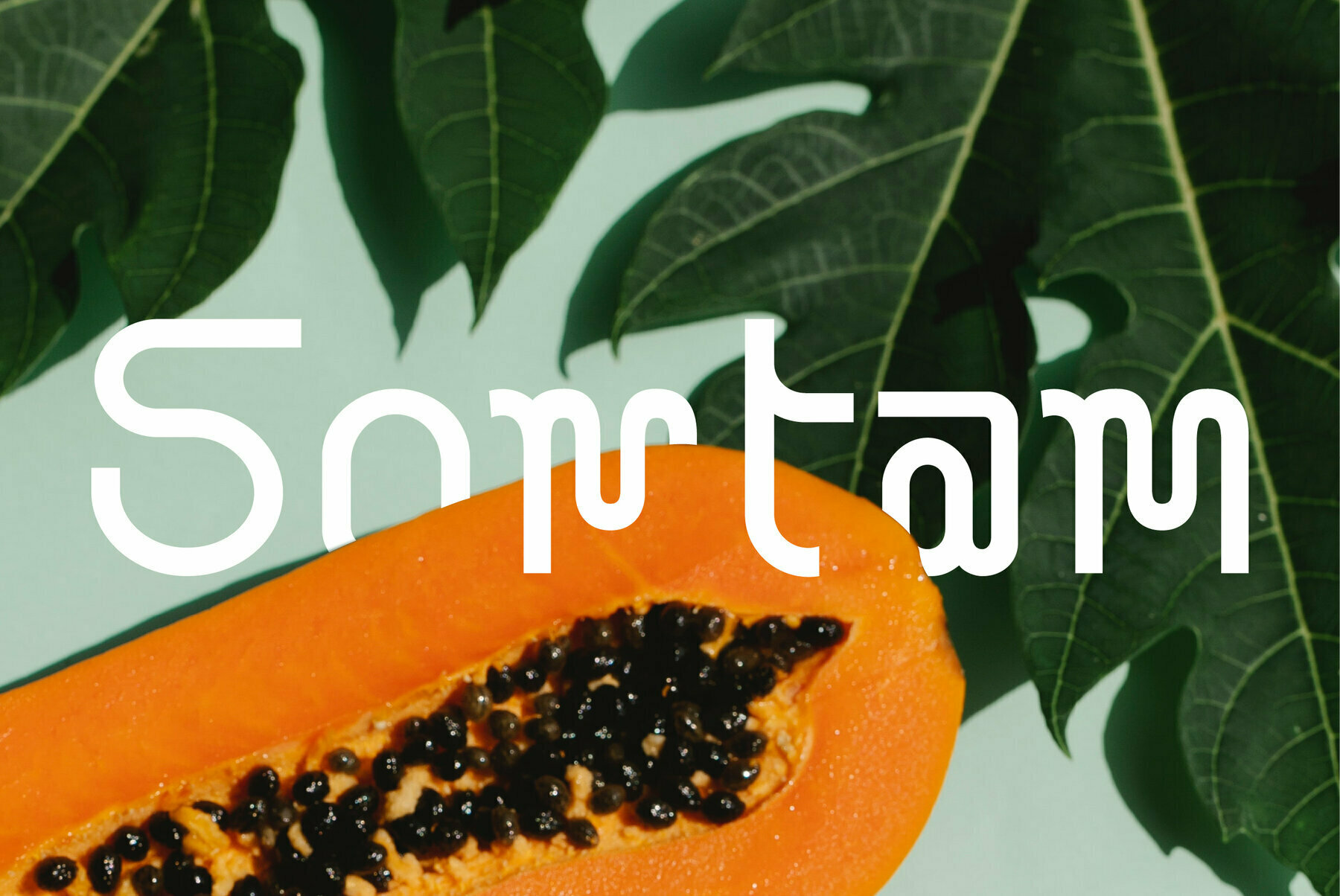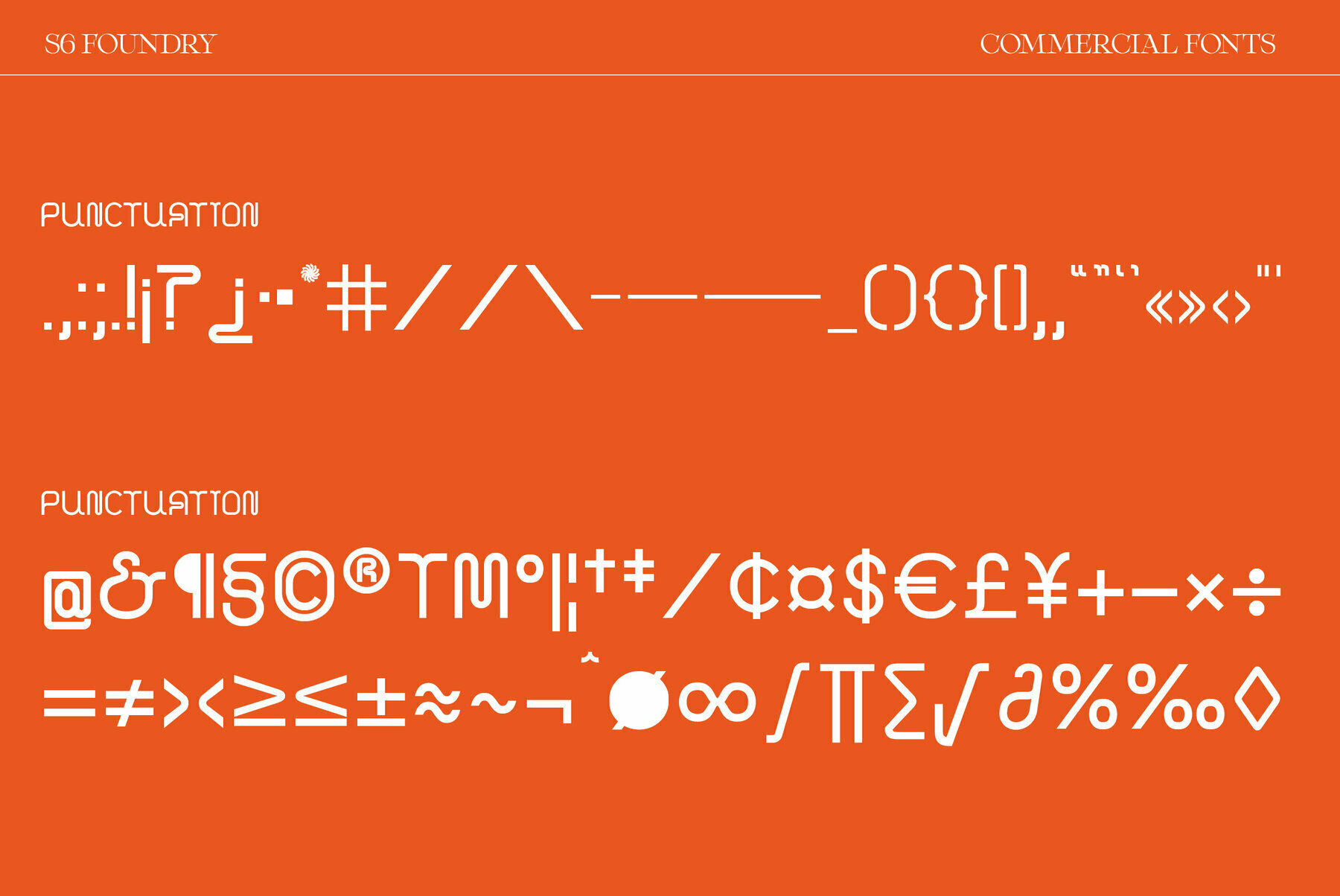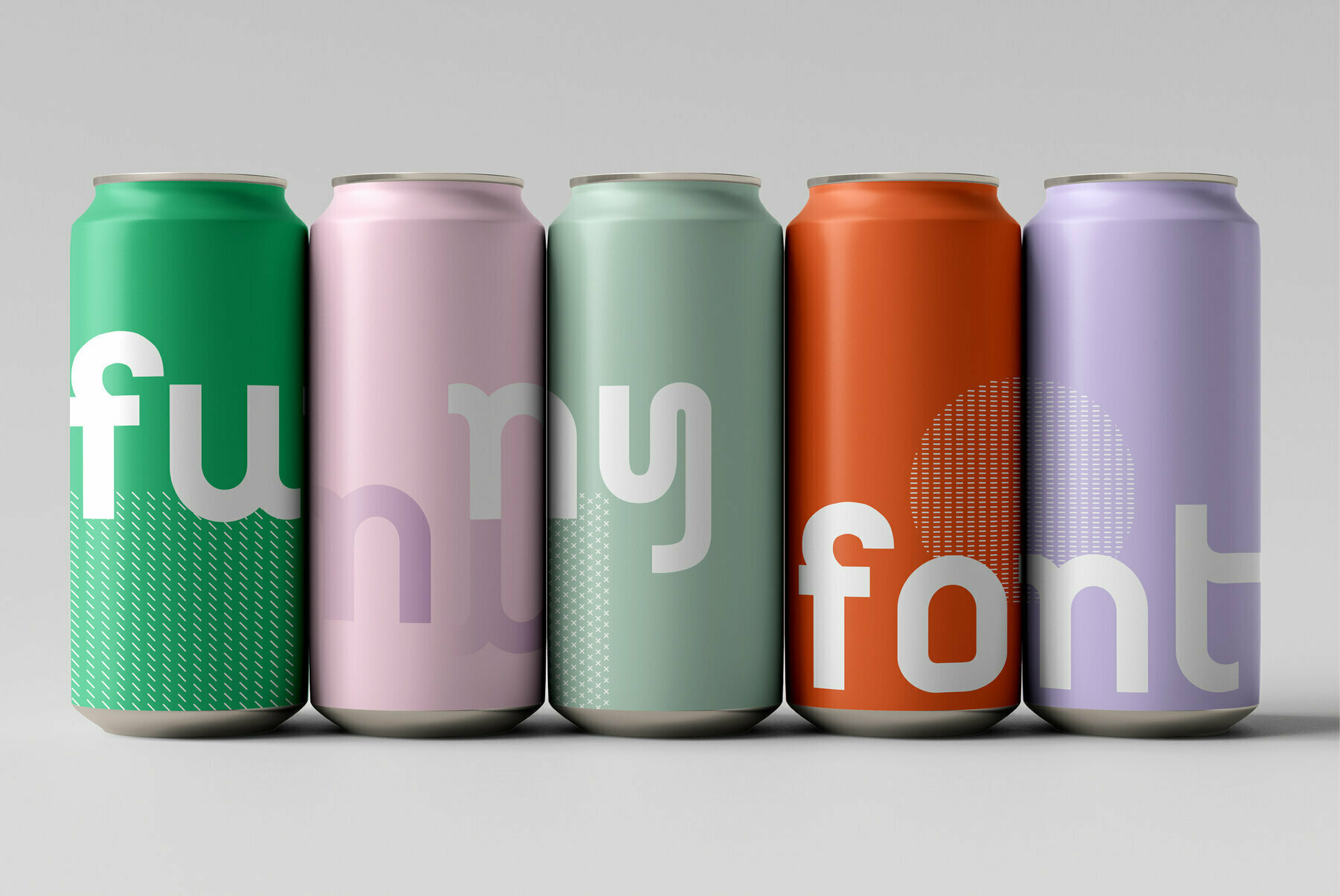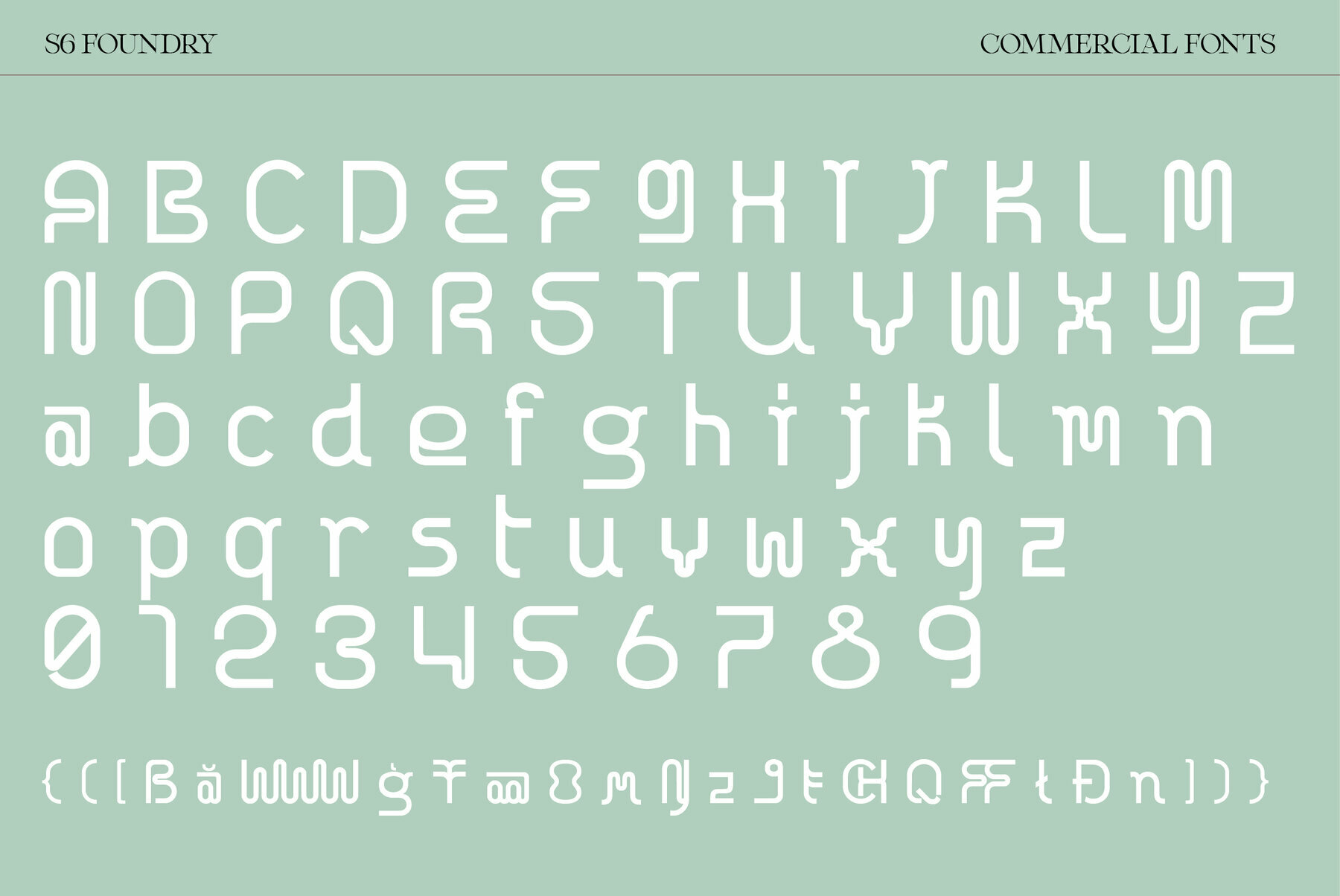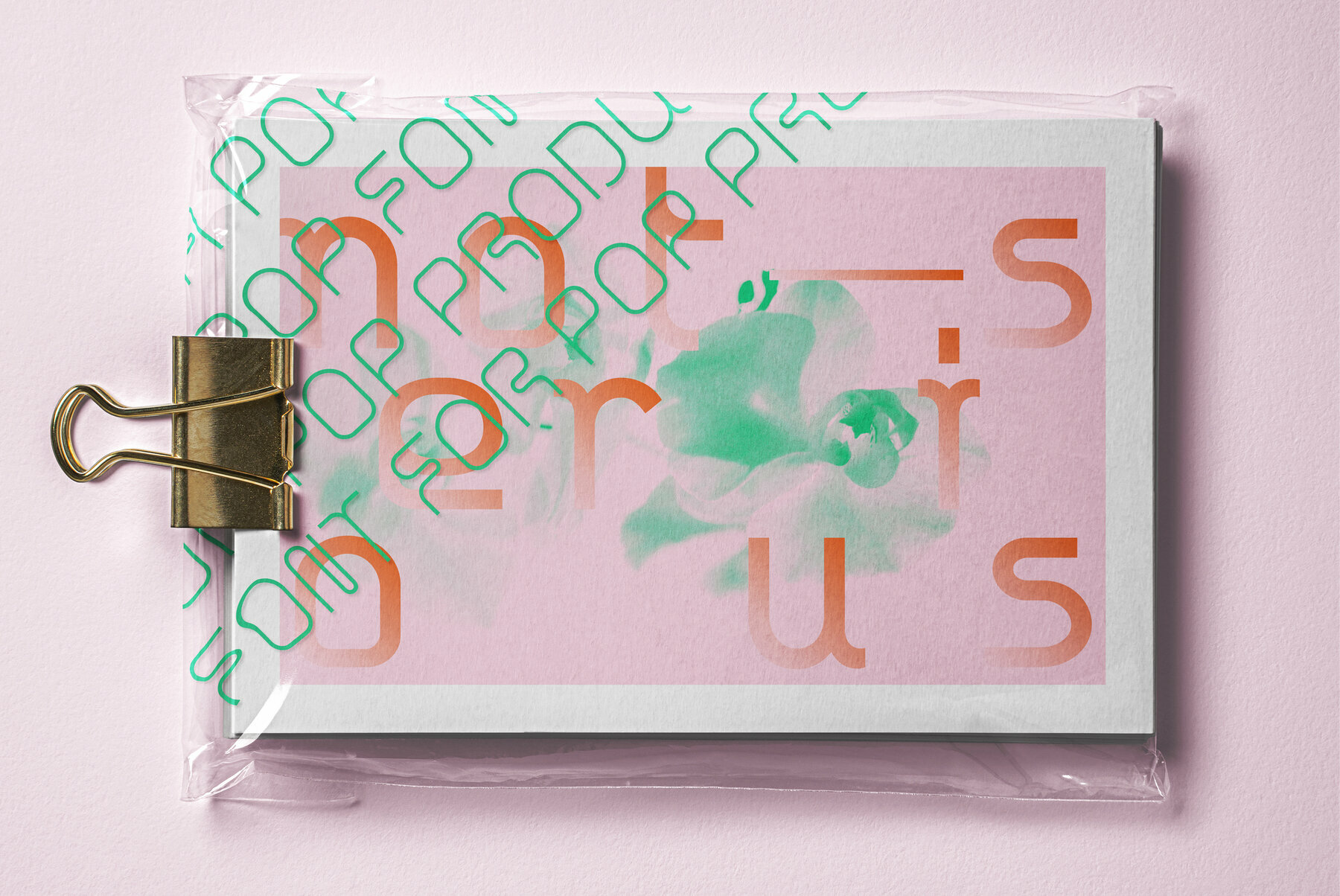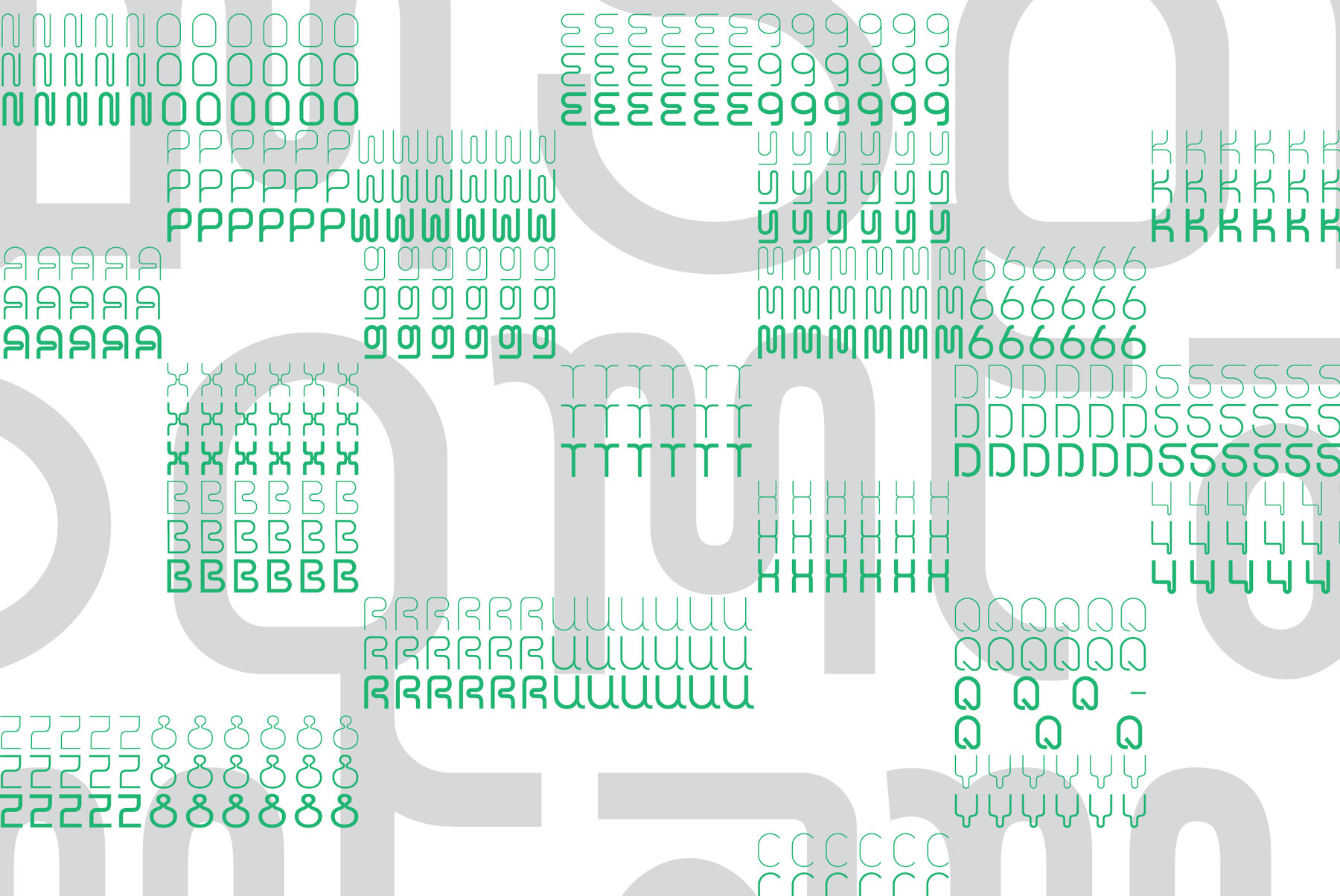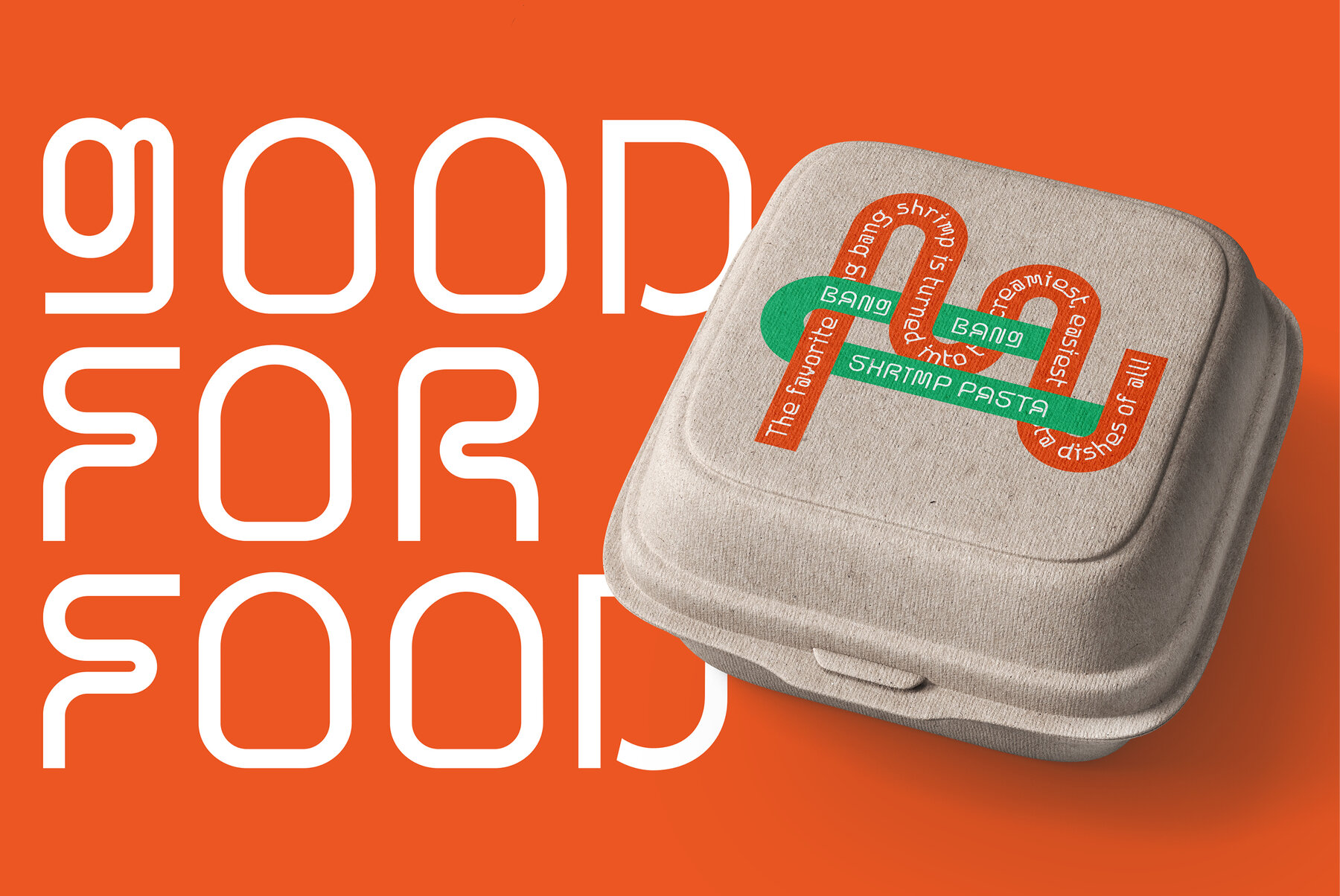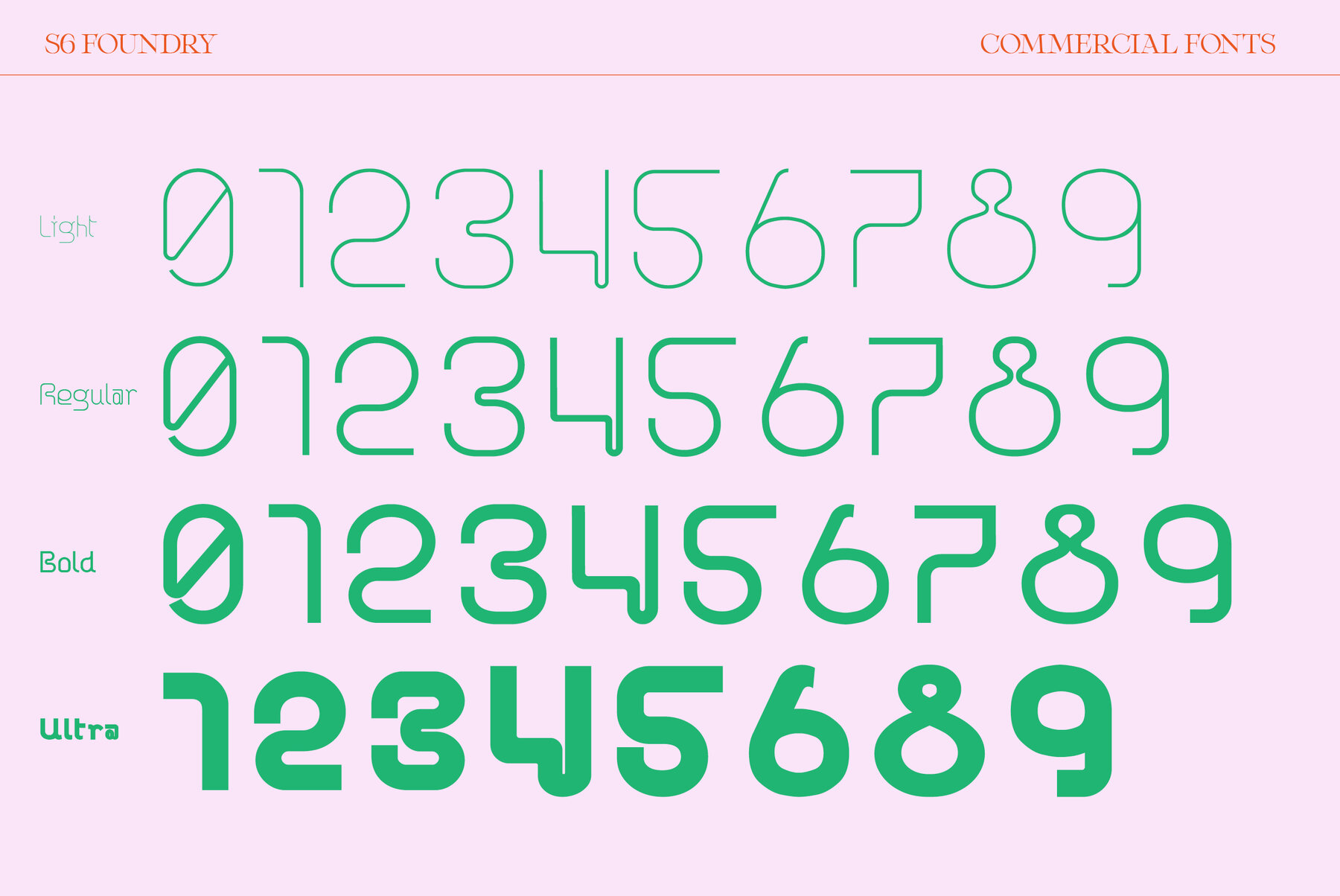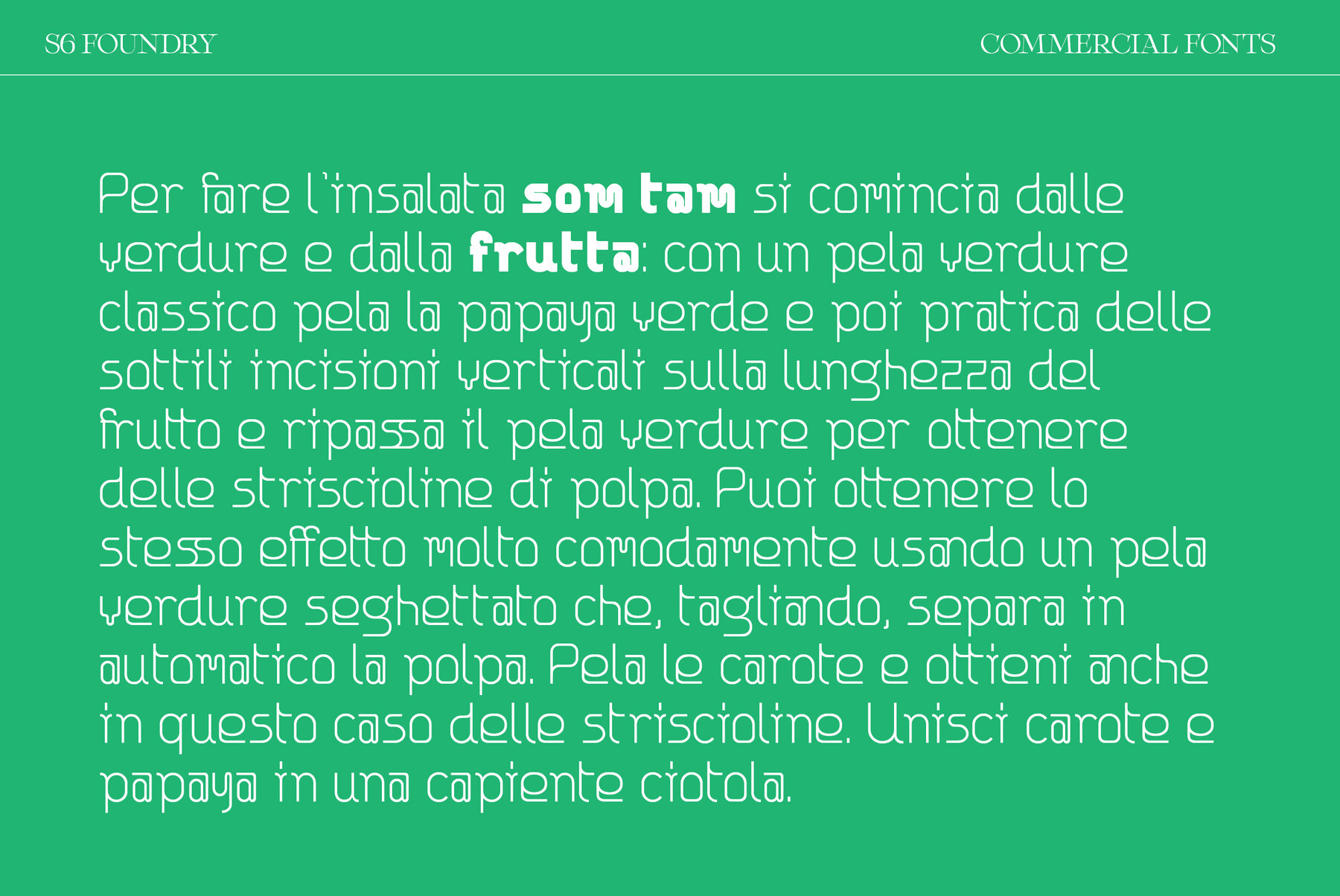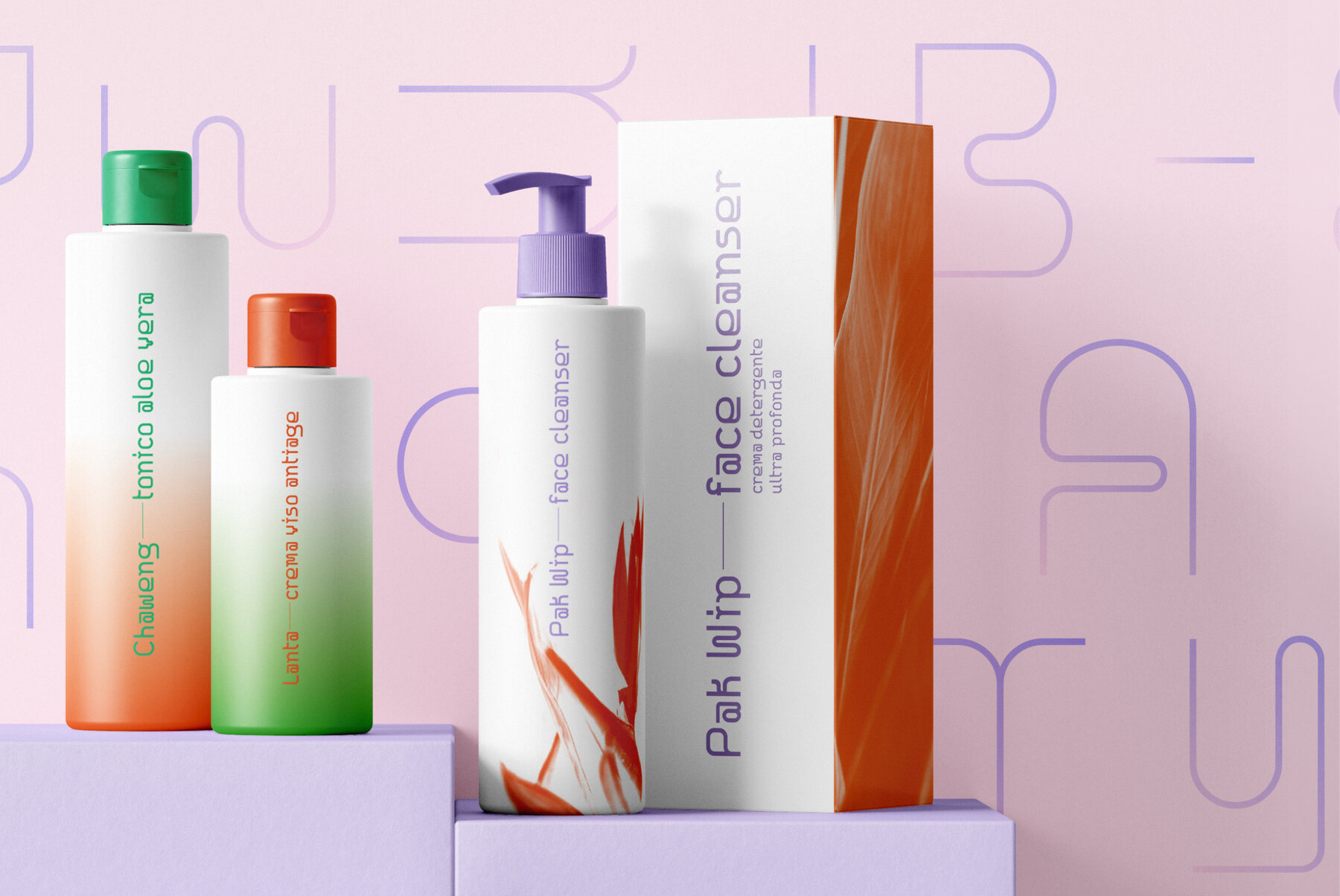
Somtam Font
Somtam is a new decorative geometric display typeface, based on the continuation of a single line. It complements the style and personality of the ascetics of the continuum. Somtam is perfectly suited for headlines, large-format prints, brand identities, social media, advertising, editorial design, posters, magazines, logos, headings, and more.